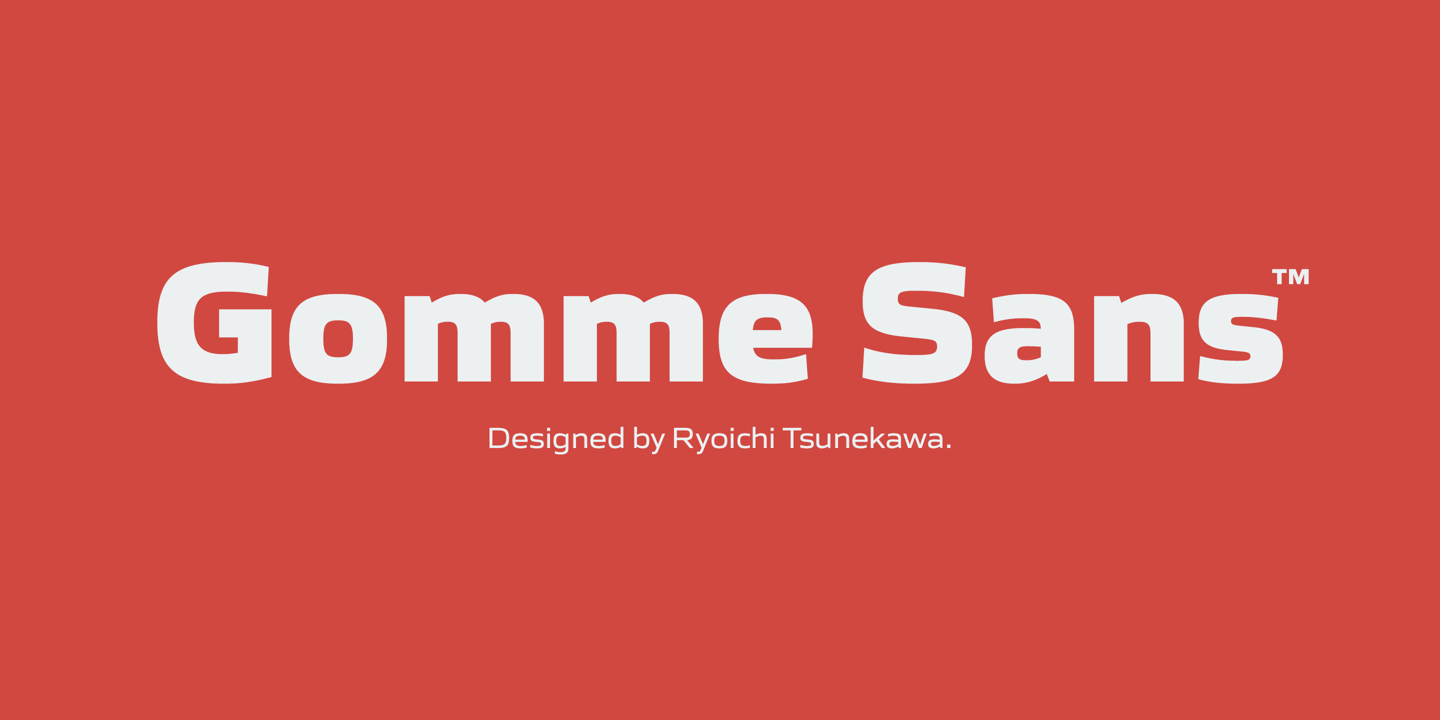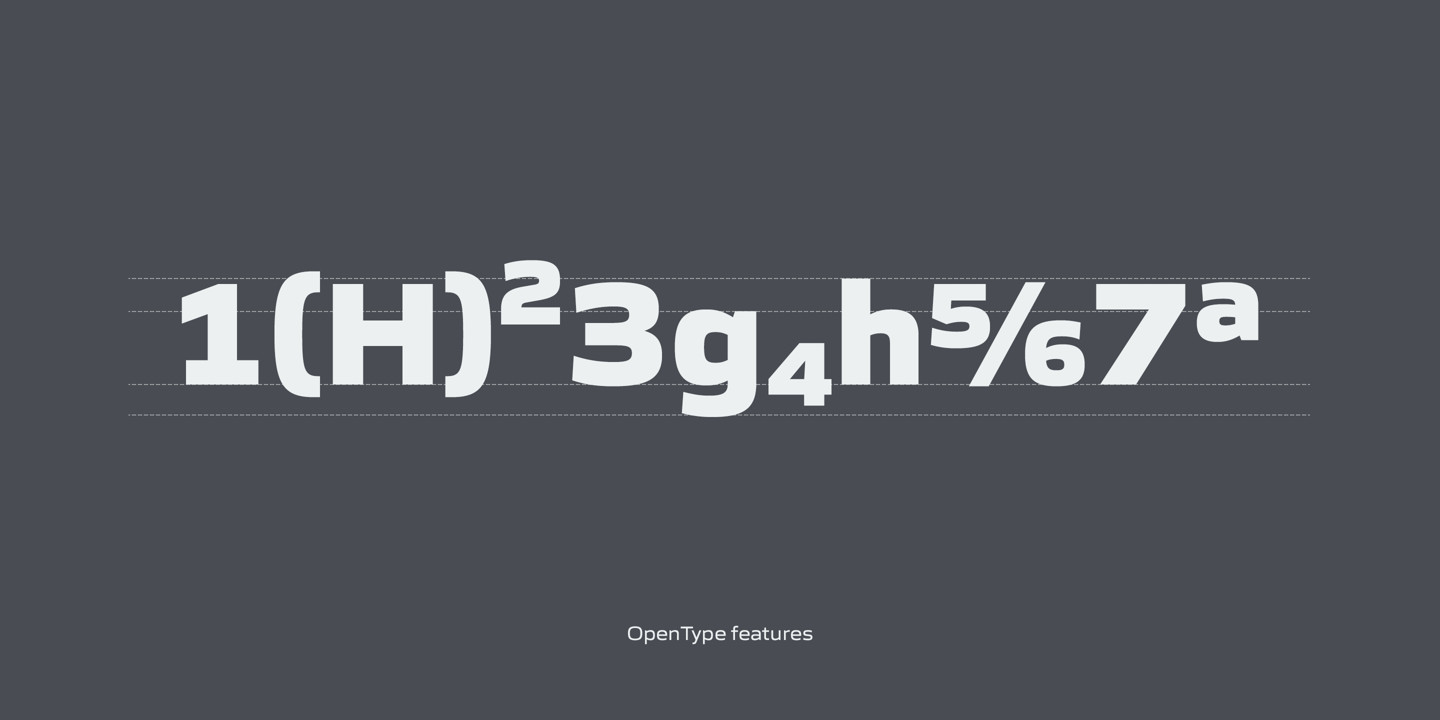
Gomme Sans
Font Family by Flat-It
"Gomme Sans is a wide and masculine sans-serif family for text designed by Ryoichi Tsunekawa and the whole family consists of 6 weights from ExtraLight to ExtraBold and their matching Italics. The basic concept of this family is not only to make an impact by masculine, squarish letter form but also to be legible and readable even on small size screen by the sophisticated design, and their large x-heights.
Gomme Sans supports almost all European languages: Western, Central, South Eastern Europeans and afrikaans. And proportional figures, superior figures, inferior figures, denominators, numerators, fractions, ordinals and case-sensitive-forms can be accessed by using OpenType features."